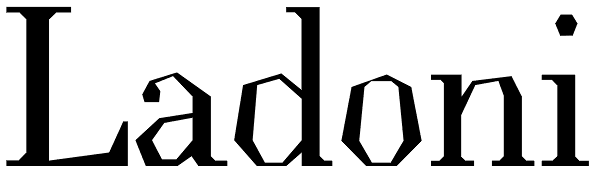
Ladoni
This typeface is inspired on Bodoni, but this is like his gross sister, because it has angles instead of curves. Is a typeface with personality, strong and robust but at the same time sweet with his italics. This typeface has 5 weights, regular...